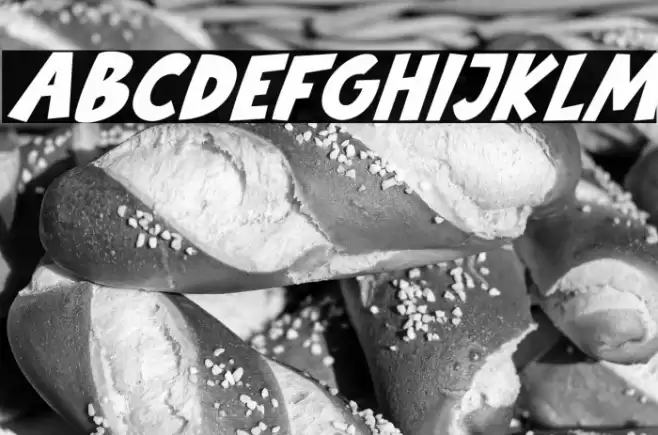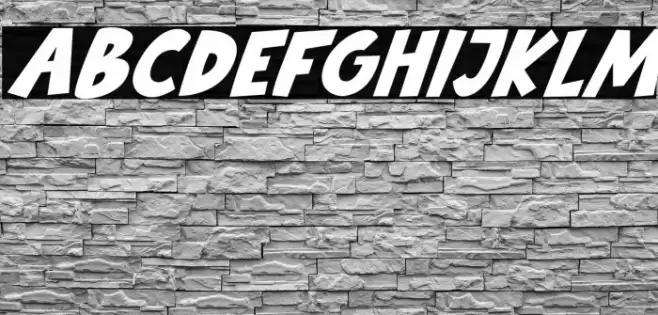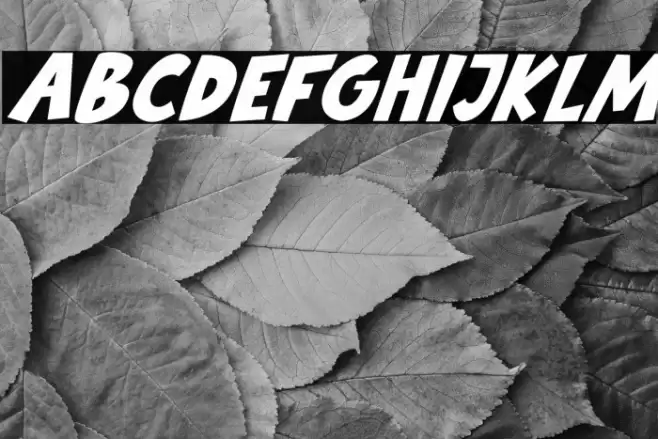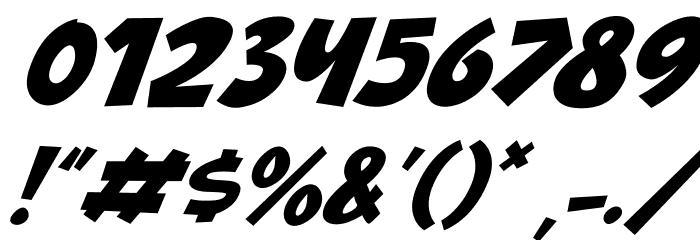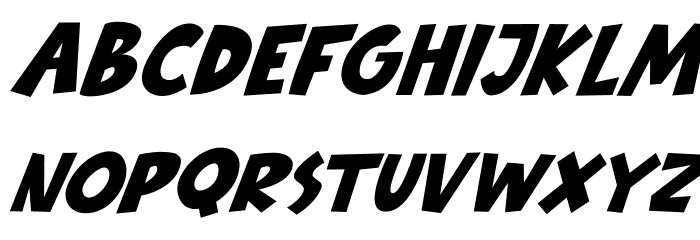
Babydoo Italic Font
Babydoo Italic Description
This playful and dynamic font features bold, slanted characters that exude energy and movement. The letters are thick and rounded, giving a friendly and approachable feel. The italic style adds a sense of speed and fluidity, making it suitable for projects that require a lively and informal touch. The uppercase and lowercase letters maintain a consistent style, with slightly exaggerated curves and angles that enhance its whimsical nature. The numbers and special characters are designed to match the overall aesthetic, ensuring a cohesive look across all text elements.
A bold, italic font with playful, rounded characters and a dynamic style from Cartoon fonts.
- Proposed Projects: Ideal for children's books, playful branding, event posters, and casual invitations.
- Overall Style: Playful